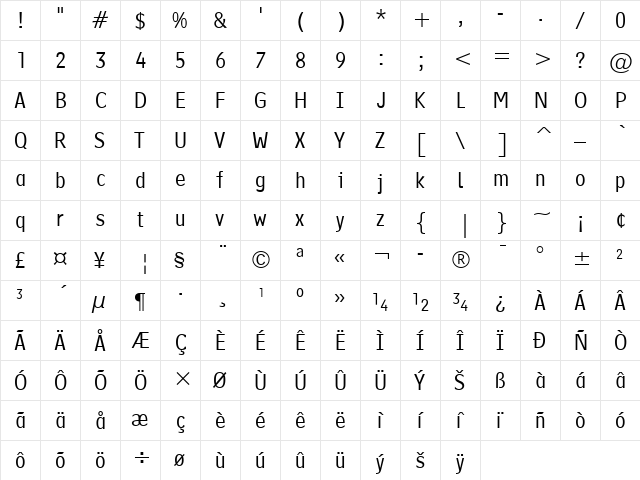
AFInterface Regular Font Preview
AFInterface Regular
AFInterface Regular Font Details
| Foundry | Christian K sters CHKDesign Ltd |
Design Context for AFInterface Typeface
AFInterface is a composed and adaptable typeface that performs quietly and consistently across a wide range of design contexts.